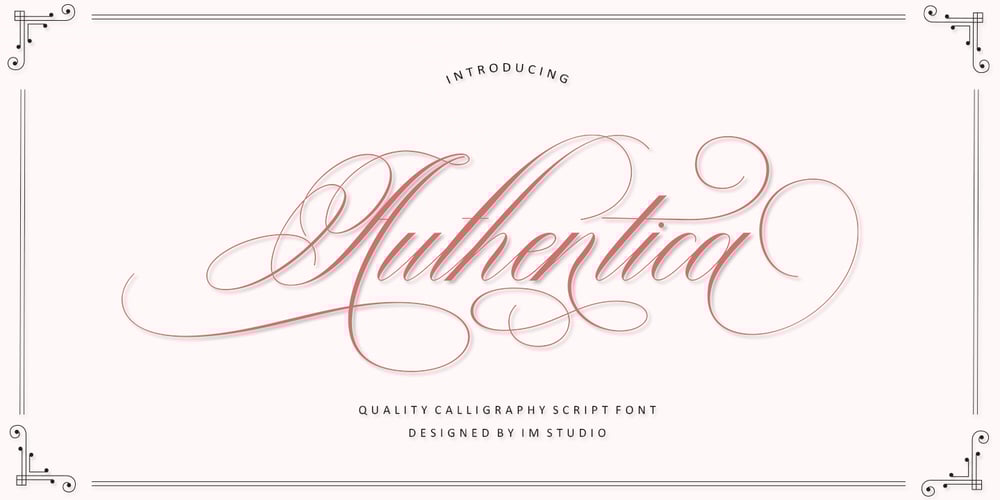
Authentica Script
Authentica Script font
Authentica Script Font Family was designed by Ikhsan Maulana and published by IM Studio. Authentica Script contains 1 styles and family package options. Authentica is a modern, caligraphic script. It contains a full set of lowercase and uppercase letters, various kinds punctuation marks, numbers, and multilingual support.The font also contains several alternative ligatures and Stylistic Sets for those of you who have softwarewhich can work OpenType (Photoshop / Illustrator / InDesign).